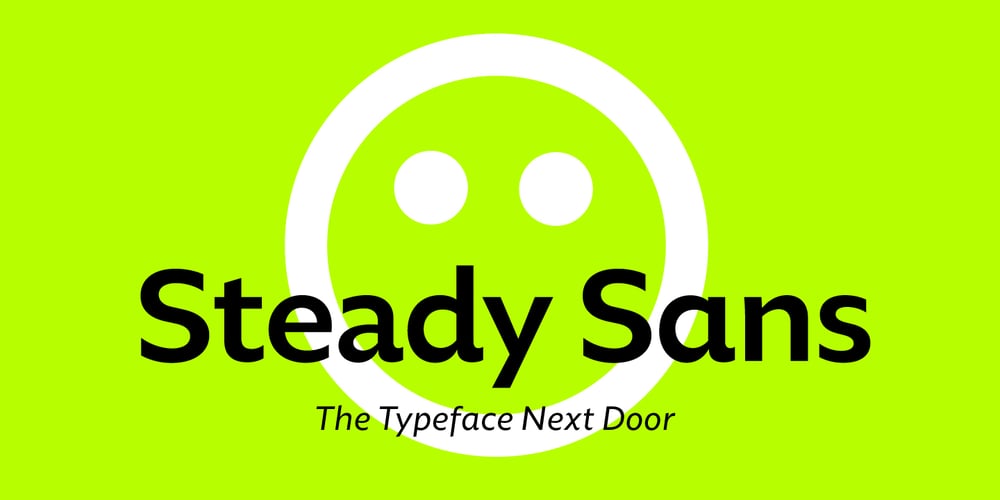
Steady Sans
Steady Sans font
Steady Sans Font Family was designed by Galen Lawson and published by District. Steady Sans contains 10 styles and family package options. English by influence with an American disposition and modernist details, Steady Sans is a blend of styles from multiple eras. Decidedly expansive letterforms make for an overall lively presence. Fluid italics, multiple weights, and alternate forms provide a variety of tone for headline use and solid construction works well for text settings.